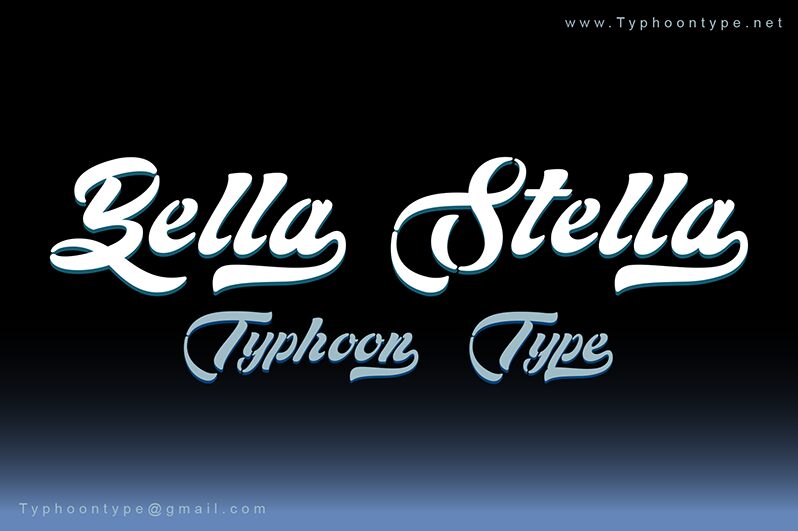
Bella Stella font by Typhoon Type - Suthi Srisopha is a free calligraphy font with an expressive, flowing, and elegant design. This artistic typeface has a retro-inspired look that is colorful and sophisticated at the same time. As all calligraphic fonts, Bella Stella features decorative elements that make its presentation stand out in all its artistic shapes and curves.
Accessible for free download and use, this stunning set of alphabets can elevate your poster designs, brochures, business cards, logos, apparel designs among other branding material designs. Web designers can employ Bella Stella to take their website UI mockups as well as UX projects into wonderful realities. Using Bella Stella in your book covers, magazine covers or stationery items will add extra flair to the undertone they set for the reader.